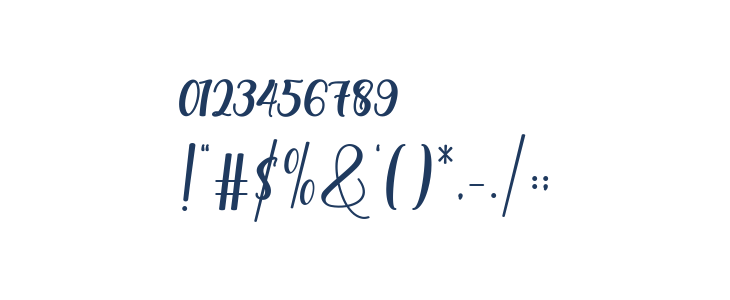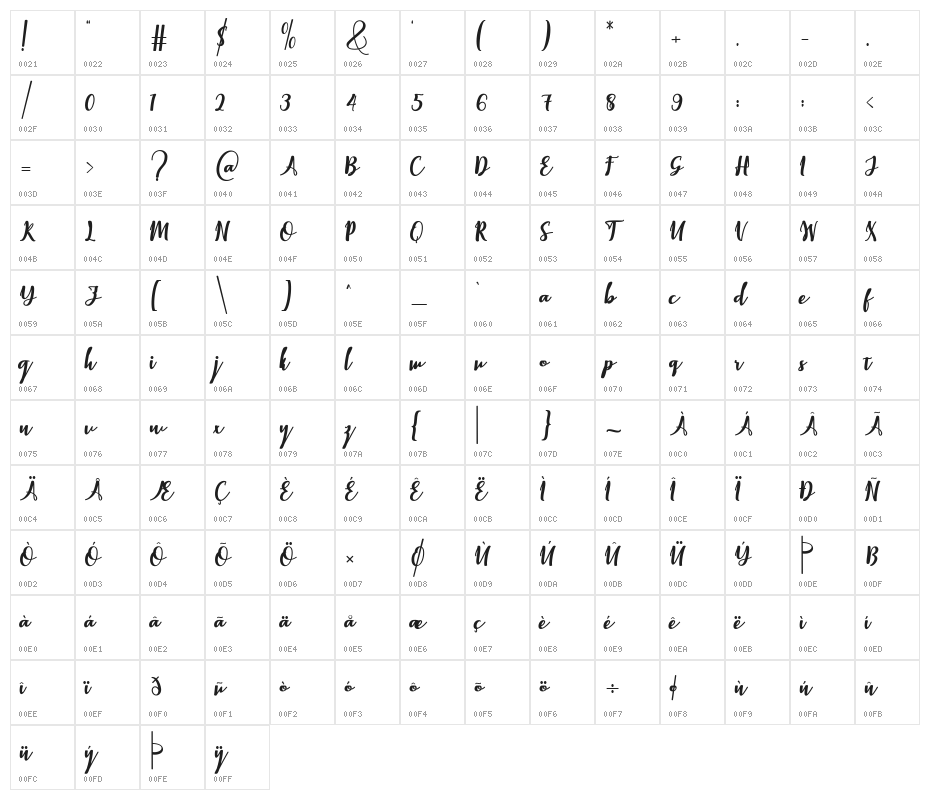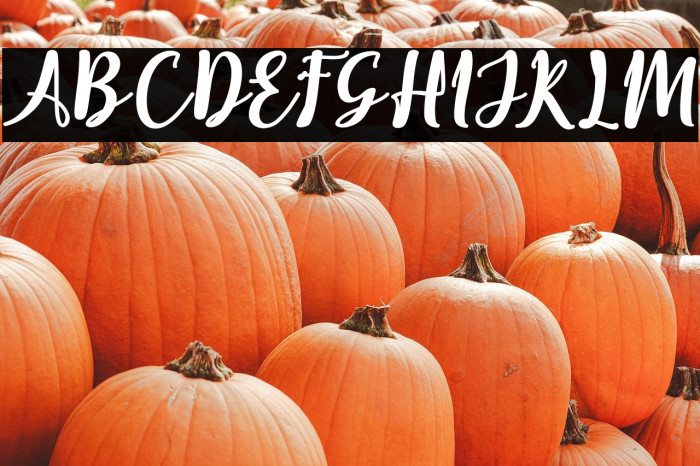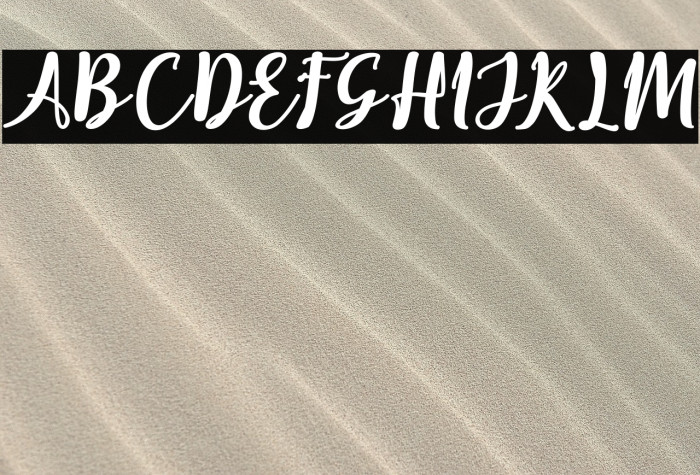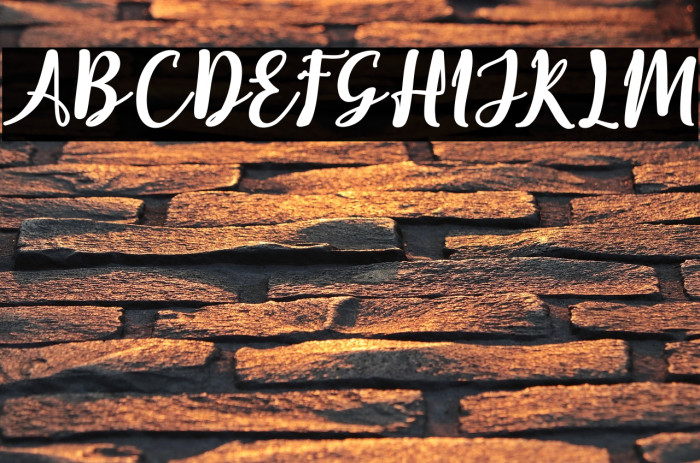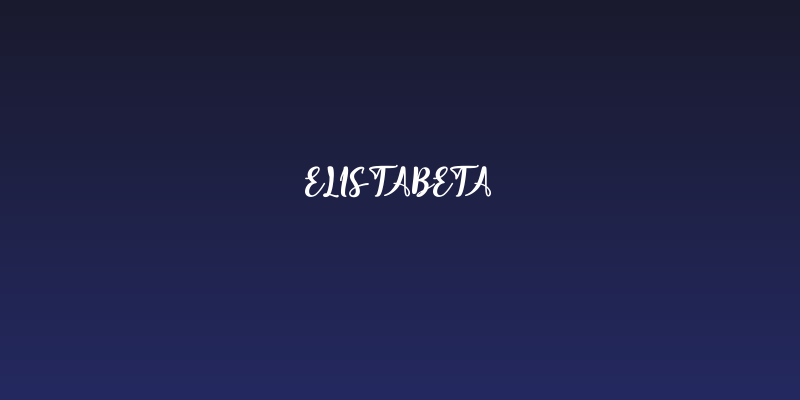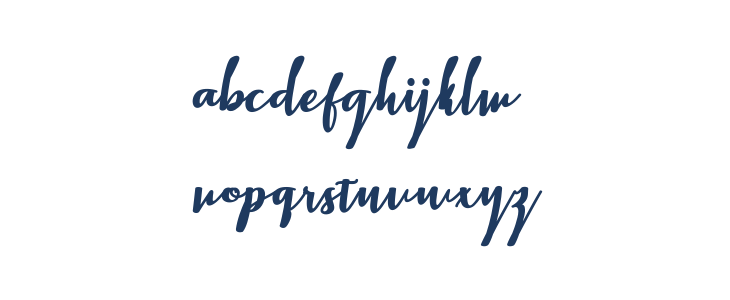
Elistabeta Font
Elistabeta Description
This font features a dynamic and flowing script style, characterized by its elegant and cursive letterforms. The uppercase letters are bold and sweeping, with a distinct flair that adds a sense of movement and sophistication. The lowercase letters maintain a consistent flow, complementing the uppercase with their smooth curves and connected strokes. The numerals are clear and legible, matching the overall aesthetic with their rounded and stylish appearance. Special characters are well-integrated, maintaining the font's cohesive look. This font exudes a sense of elegance and creativity, making it suitable for a variety of design projects.
Overall StyleElegant
Use CaseLogos, Invitations, Branding
Proposed ProjectsIdeal for wedding invitations, branding, logos, and elegant packaging designs.